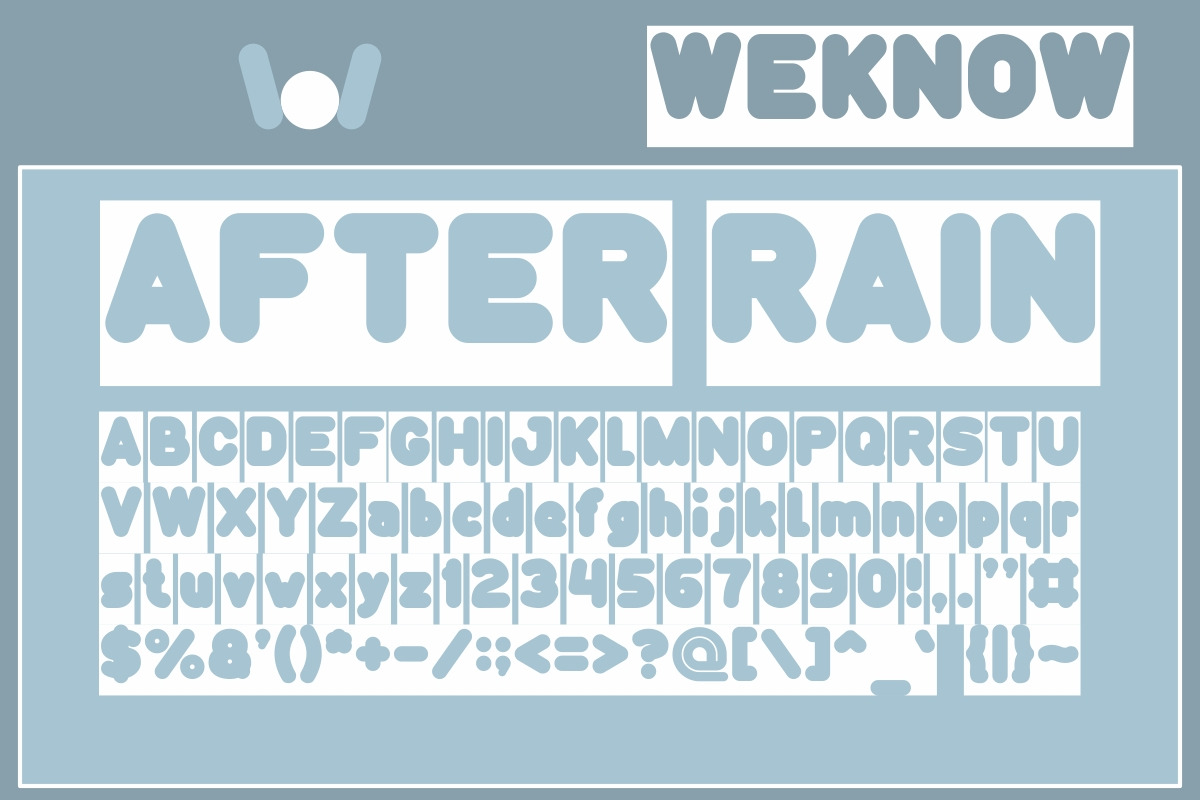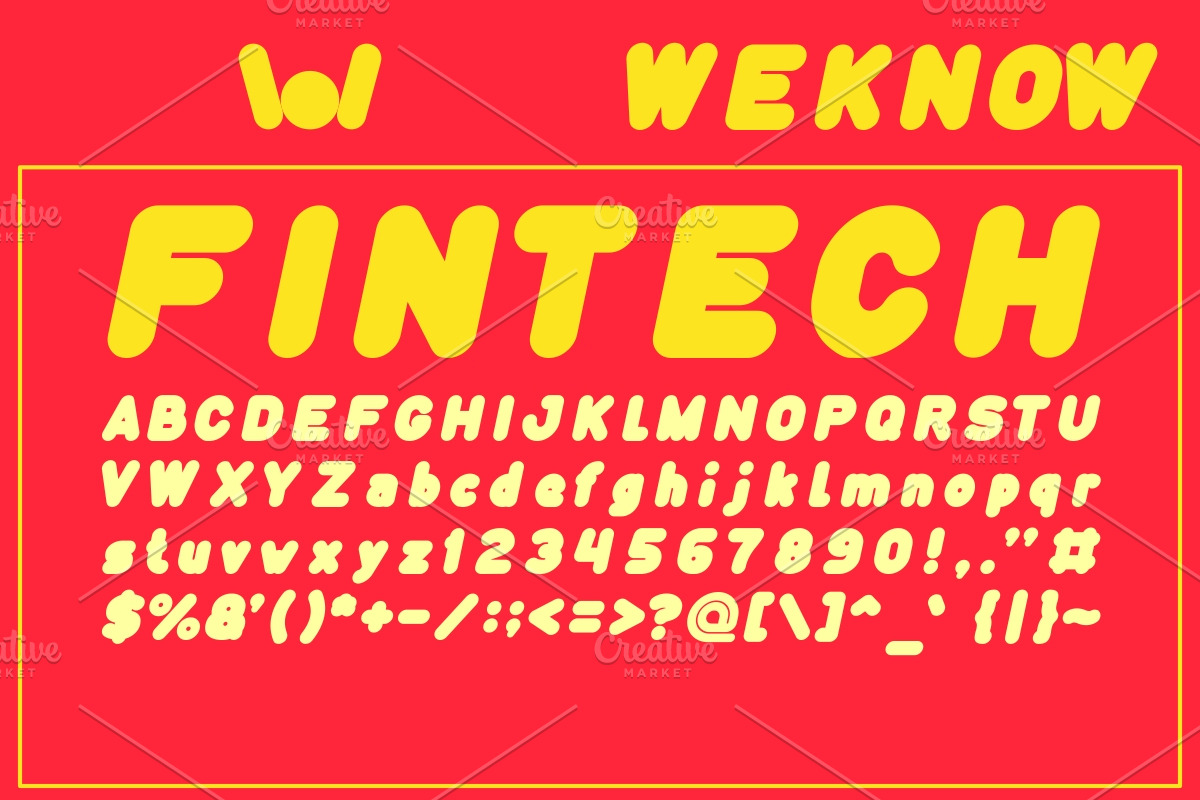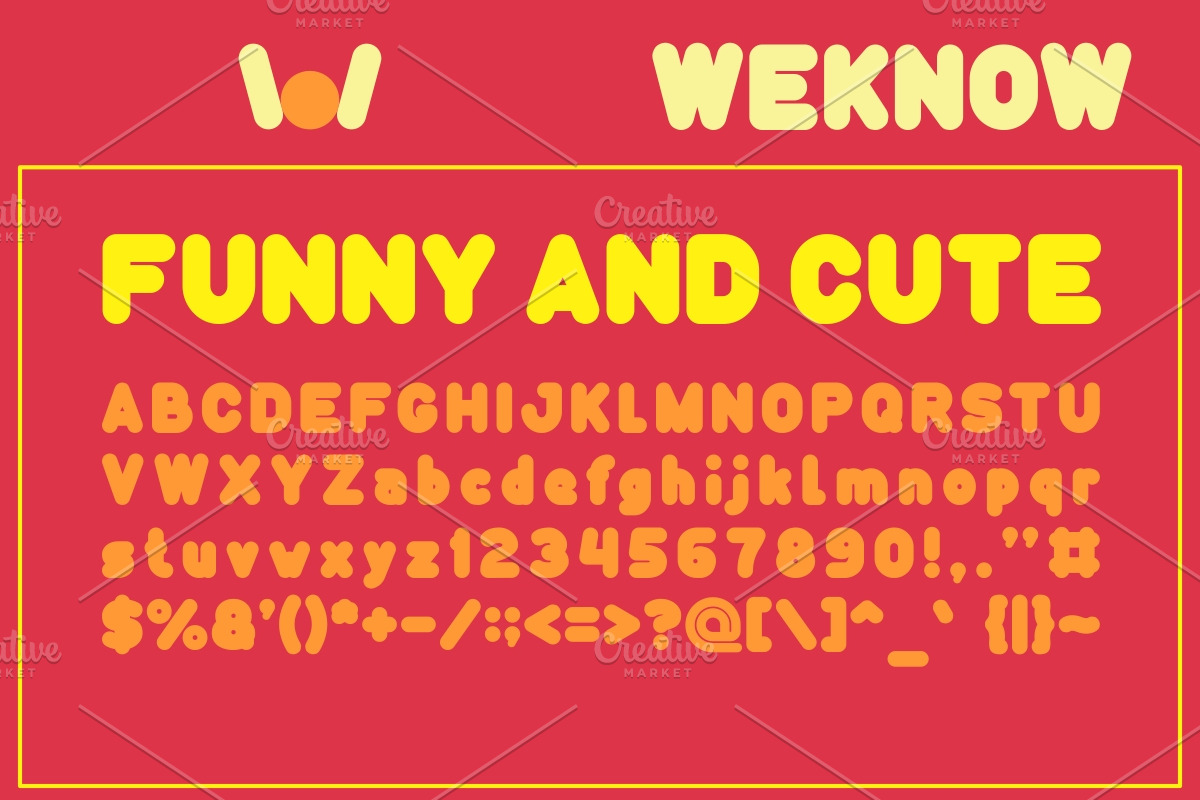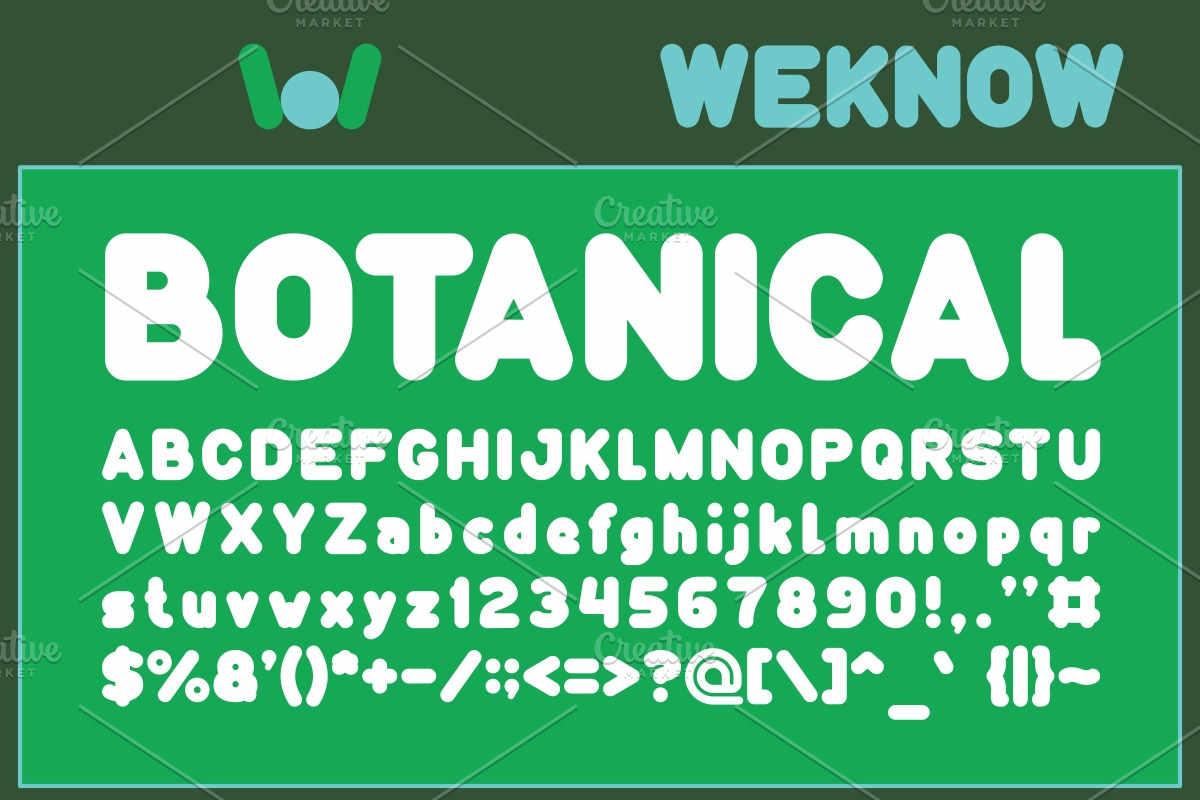
funny and cute font
available style: Funny and Cute-Hollow, Funny and Cute-Hollow-Inverse, Funny and Cute-Italic, Funny and Cute-Light
Why funny and cute font is worth a look
funny and cute font by weknow fits naturally into Branding, posters, packaging, typography.